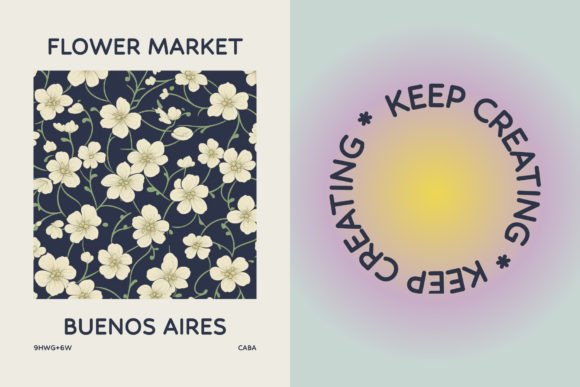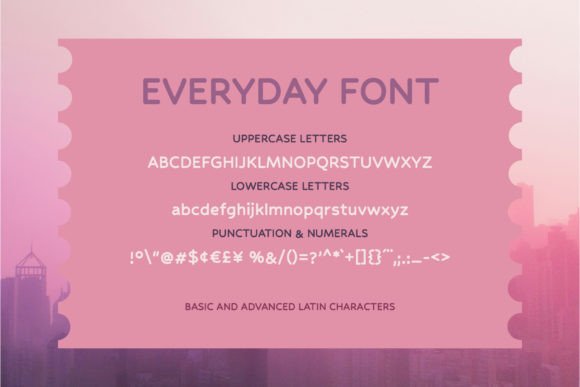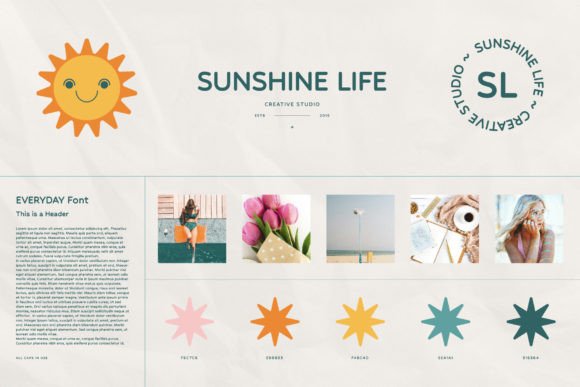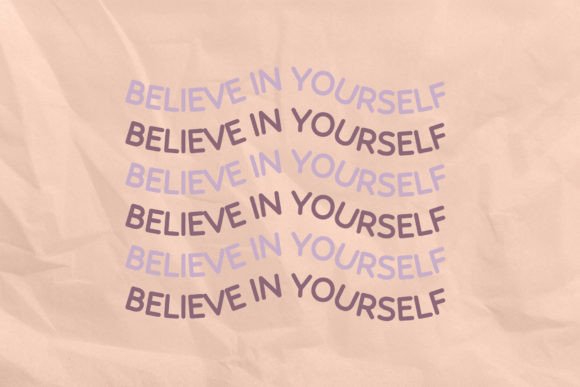
Introducing Everyday Font: The Ultimate Design Companion
Are you a designer, craftsperson, or simply someone who appreciates the art of typography? Look no further than the Everyday Font, a versatile and aesthetically pleasing typeface perfect for a wide range of design applications. In this article, we’ll explore the features and benefits of Everyday Font, and why it’s an excellent choice for branding, advertisements, web design, and editorial content.
A Clean and Versatile Style
Everyday Font boasts a clean and versatile style that makes it suitable for various design needs. Its elegant lines, balanced proportions, and clear readability ensure that your message gets across with style and sophistication. Whether you’re designing a logo, brochure, website, or social media post, Everyday Font is the perfect companion to help you achieve your creative vision.
Suitable for Both Headings and Body Text
One of the standout features of Everyday Font is its adaptability. It’s designed to work beautifully for both headings and body text, making it an excellent choice for a wide range of projects. Use it to create eye-catching headlines, or opt for a more subtle approach with body text that’s easy on the eyes. With Everyday Font, you can achieve a cohesive look and feel across your entire design.
A Comprehensive Character Set
Everyday Font features a comprehensive set of characters, including standard punctuation and special symbols. With 214 glyphs at your disposal, you can create complex typographic elements with ease. This extensive character set ensures that you have everything you need to bring your design to life, whether you’re working on a digital project or a print publication.
Perfect for Digital and Print Media
In today’s multi-channel world, designers need fonts that can adapt to different mediums. Everyday Font is designed with this in mind, making it an excellent choice for both digital and print media. Use it to create stunning website designs, social media graphics, or digital ads, and then seamlessly transition to print materials like brochures, flyers, or business cards.
Essential Characters and Symbols for Maximum Usability
Everyday Font includes all the essential characters and symbols you need to ensure maximum usability across different types of projects. From basic punctuation to more specialized symbols, this font has got you covered. Say goodbye to font limitations and hello to creative freedom!
So, what are the benefits of using Everyday Font for designers and crafters? Here are just a few:
- Consistency: Use Everyday Font across multiple projects to establish a consistent visual brand identity.
- Flexibility: With its comprehensive character set and adaptability, Everyday Font can be used for a wide range of design applications.
- Ease of use: Everyday Font is easy to read and work with, saving you time and effort in your design projects.
- Aesthetic appeal: With its clean lines and balanced proportions, Everyday Font adds a touch of sophistication to any design.
| Font Name | Everyday Font |
| Author | Lu Otero |